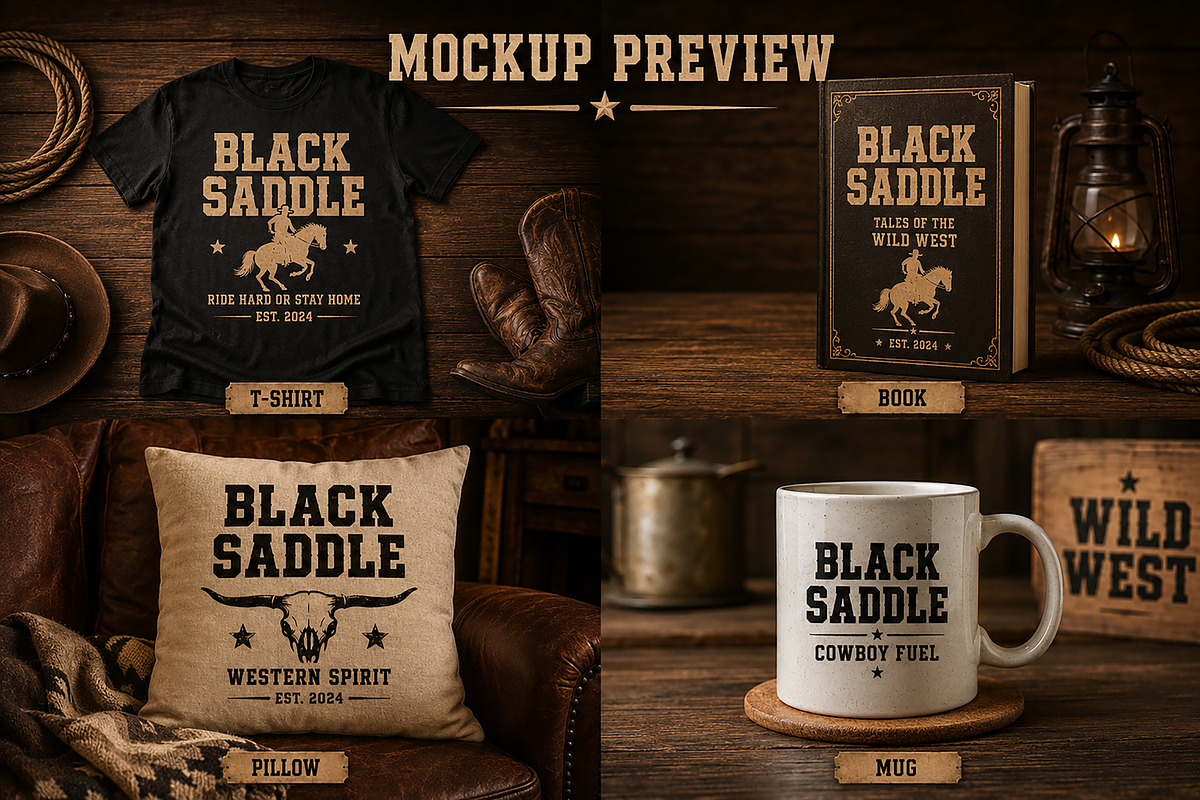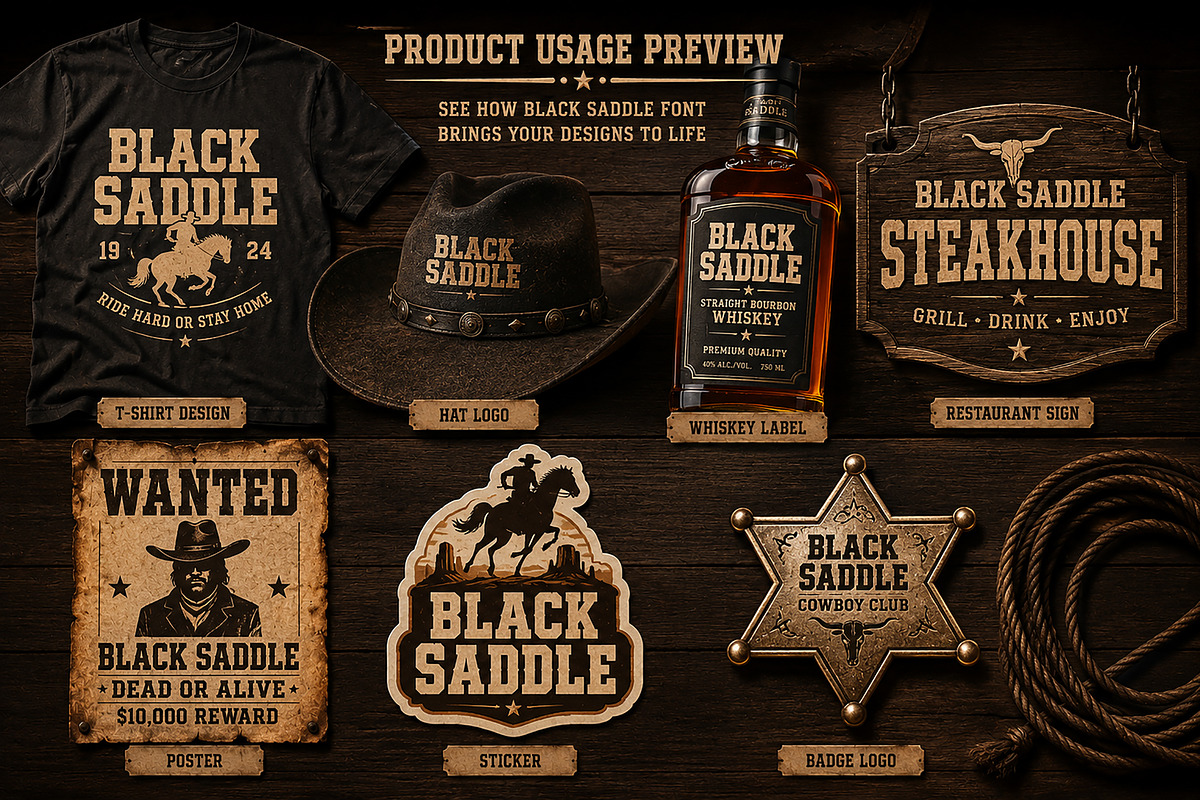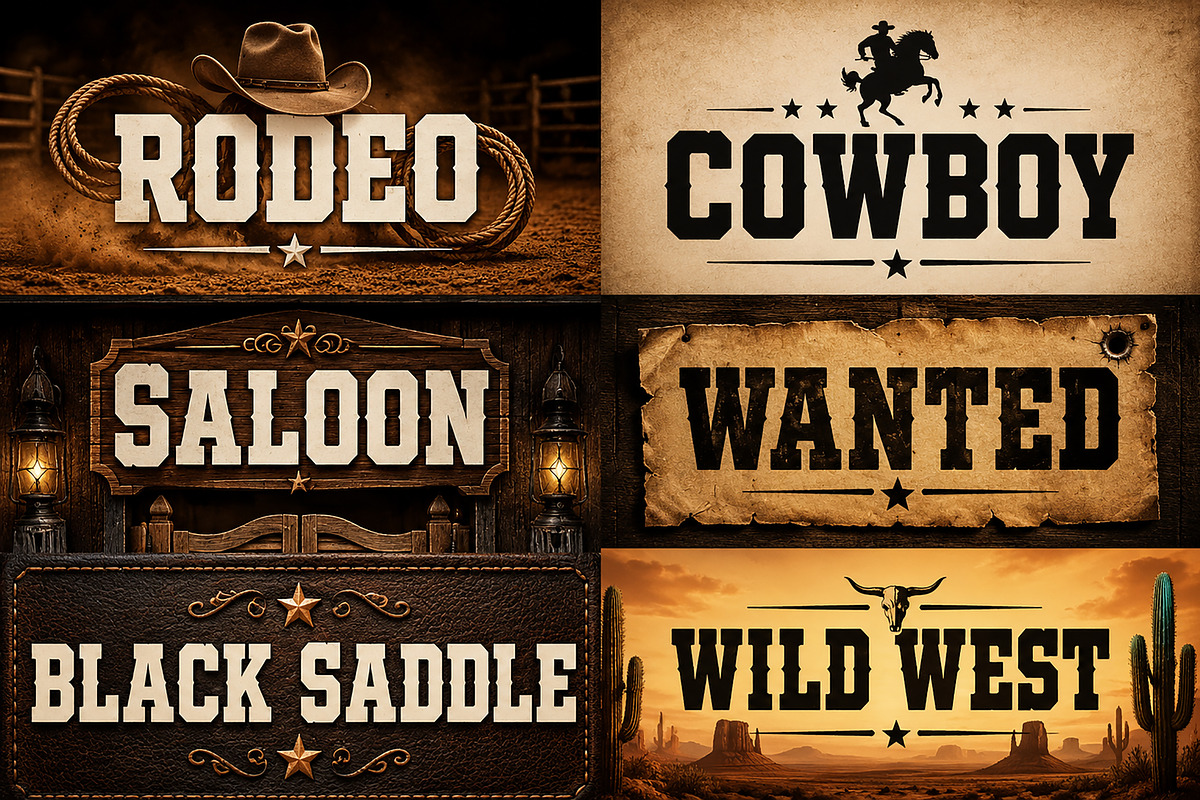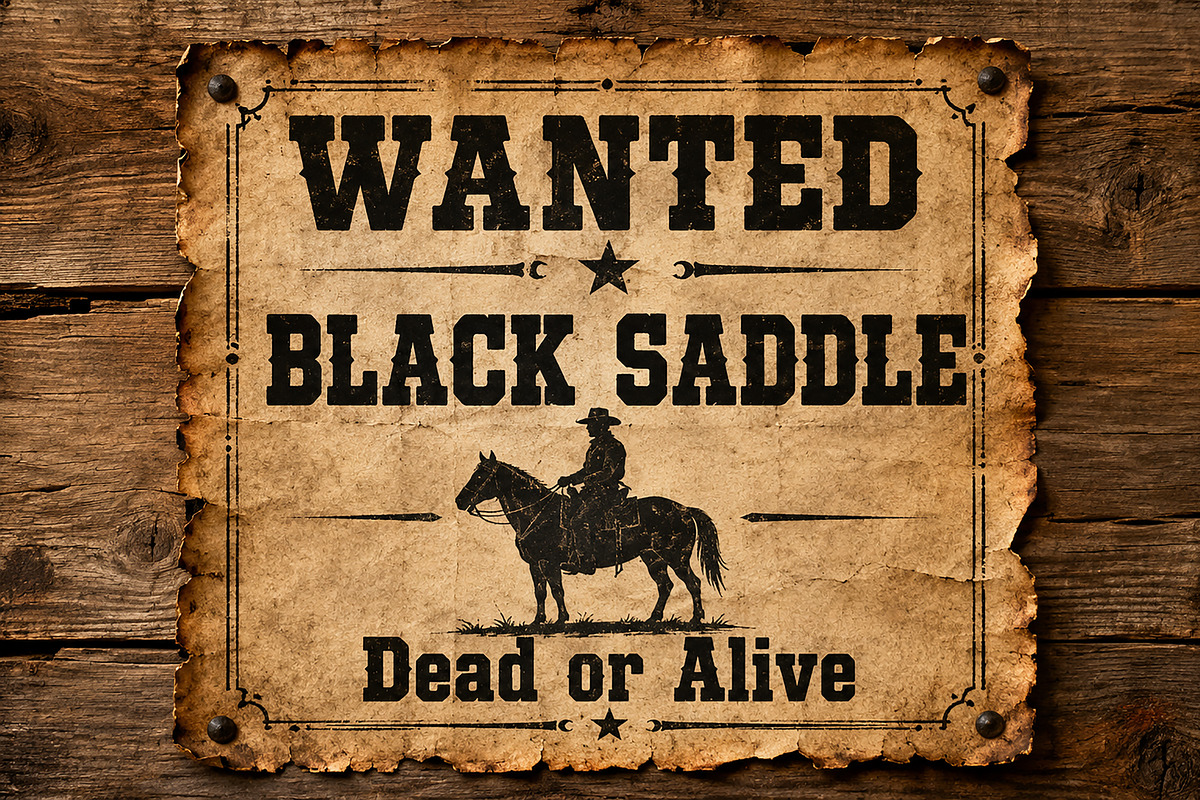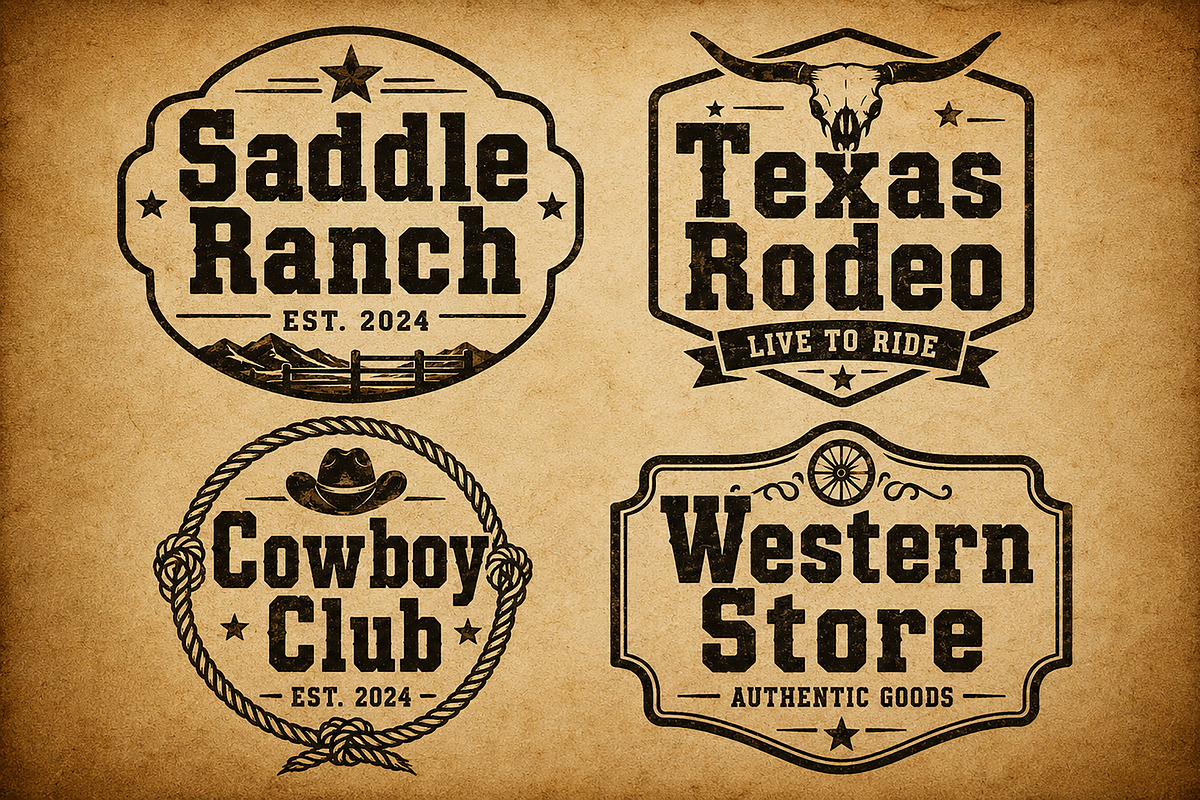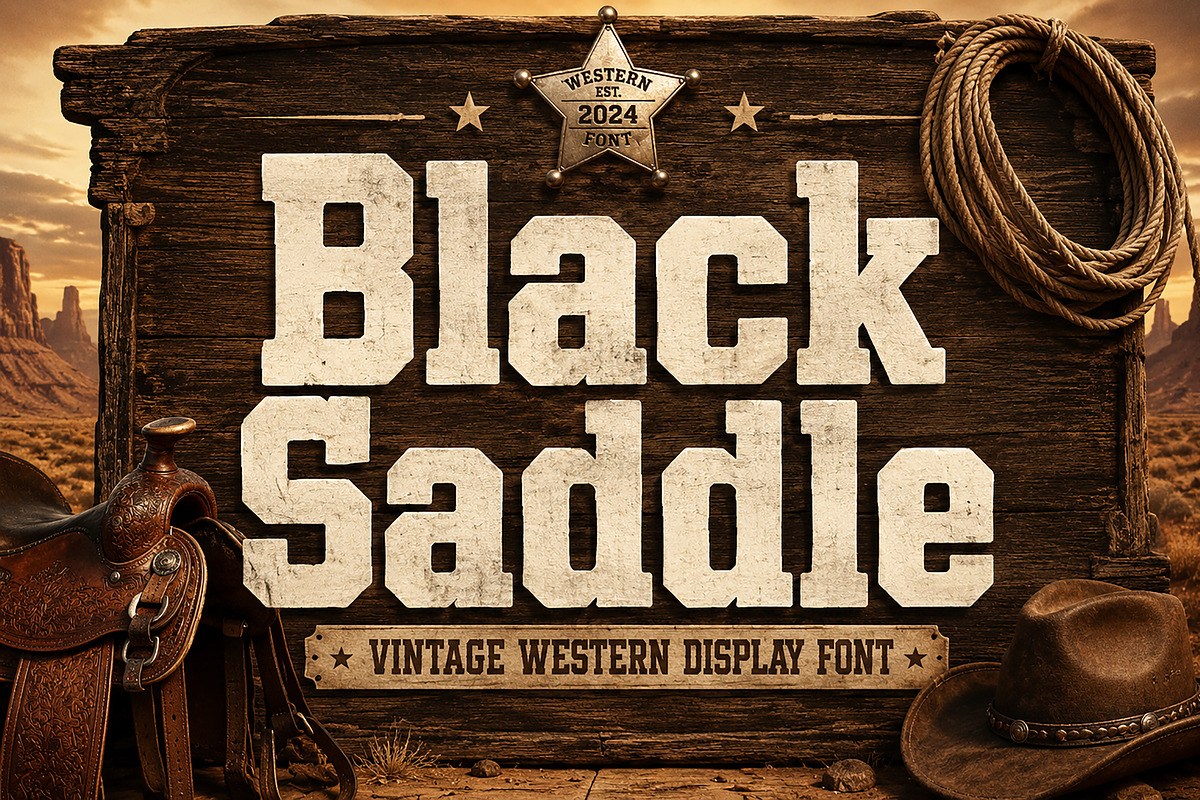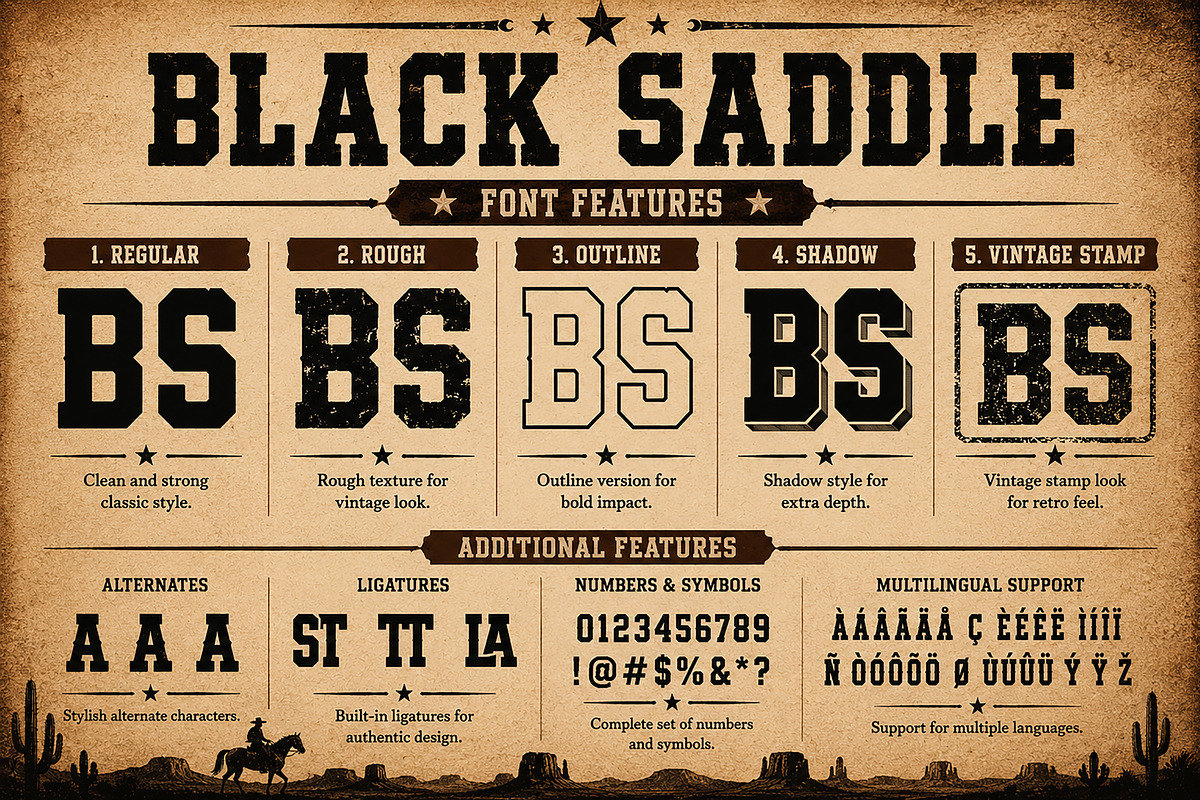
Black Saddle
Black Saddle – Bold Western Display Font
Black Saddle is a bold western display font inspired by classic cowboy signage, vintage saloon typography, and old-school rodeo aesthetics. Featuring strong geometric letterforms, sharp slab-style edges, and a rugged retro personality, this font delivers a powerful and authentic western look perfect for standout display typography.
Its bold block structure creates a confident visual impact, making it ideal for logos, apparel, whiskey labels, posters, restaurant branding, packaging, merchandise, signage, and rustic-themed designs. The vintage western style gives every project a timeless frontier character while maintaining modern readability and versatility.
Black Saddle combines rugged cowboy charm with bold contemporary typography, making it a perfect choice for designers looking for strong western-inspired lettering with a classic Americana feel.
Western Branding
Cowboy & Rodeo Designs
Whiskey Labels
Vintage Posters
Apparel & Merchandise
Restaurant & Bar Logos
Rustic Packaging
Signage Design
Retro Headlines
Americana Graphics
Bold Western Style
Vintage Cowboy Design
Strong Slab Letterforms
Rugged Retro Character
Uppercase & Lowercase Characters